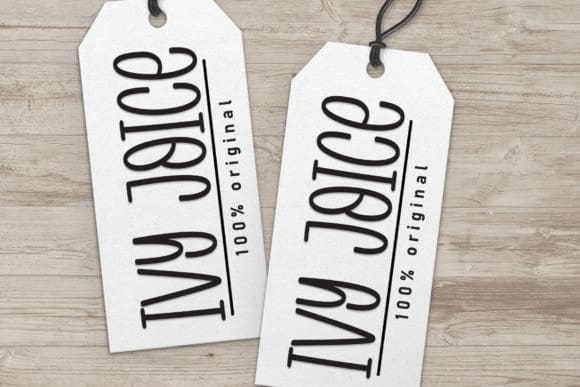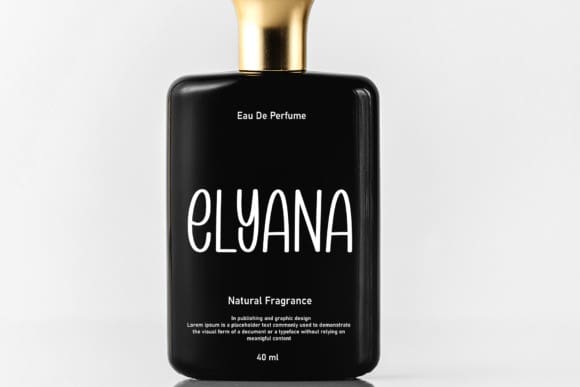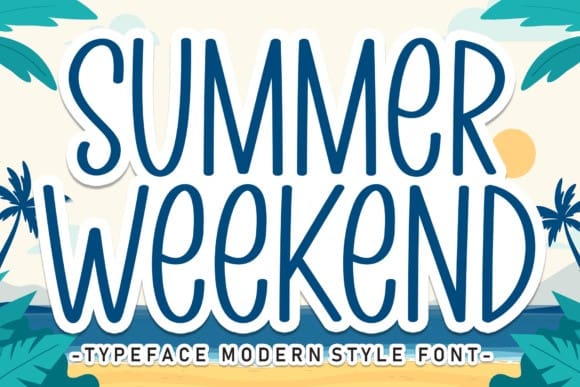
Summer Weekend Font
Summer Weekend Font is a lively and playful typeface that captures the carefree spirit of sunny days and leisurely weekends. With its rounded letterforms and casual style, Summer Weekend exudes a sense of relaxation and fun. Perfect for summer-themed designs, party invitations, and cheerful branding, this font brings a joyful and laid-back vibe to your projects.